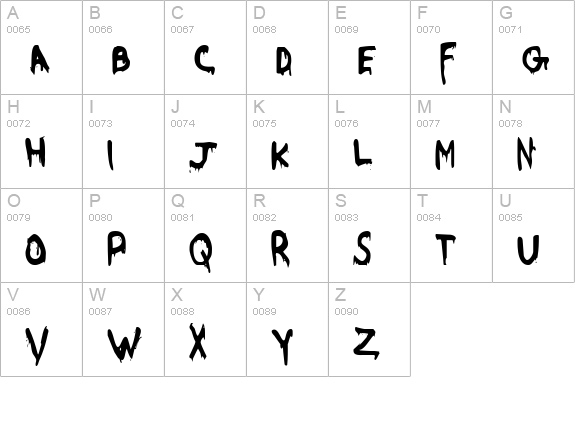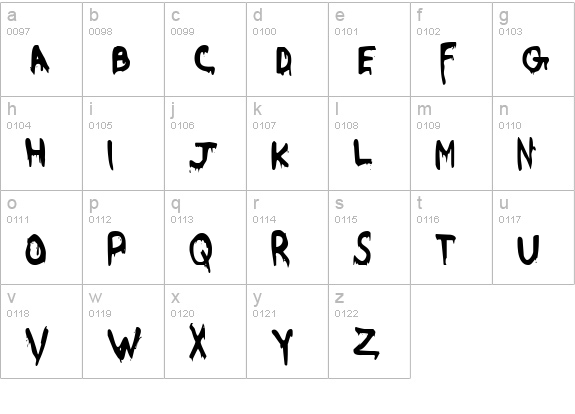
Were-Beast Condensed is a distinctive, condensed-width variant in the Were typeface family \xE2\x80\x94 well suited to design and typography projects.
Introducing Were-Beast Condensed font, a striking typeface that embodies the mysterious allure of the supernatural. This unique font combines elements of wild beasts and eerie transformations, resulting in a design that is both fierce and captivating. The sharp, condensed letterforms exude a sense of power and strength, making this font perfect for projects that require a bold statement. What makes Were-Beast Condensed font even more appealing is that it is available for free download at FontsMarket.com. Whether you are working on a horror-themed poster, a fantasy book cover, or a Halloween party invitation, this font will add a touch of otherworldly charm to your designs. Embrace the wild side and unleash the primal energy of Were-Beast Condensed font in your next creative project.